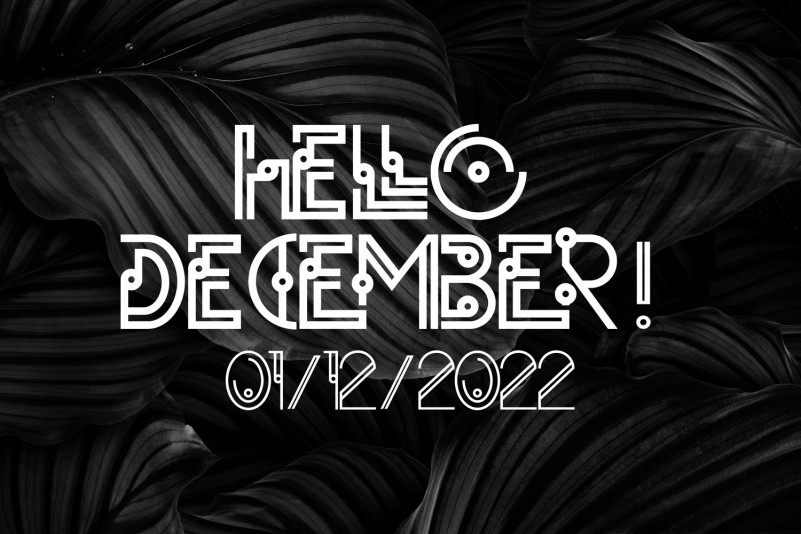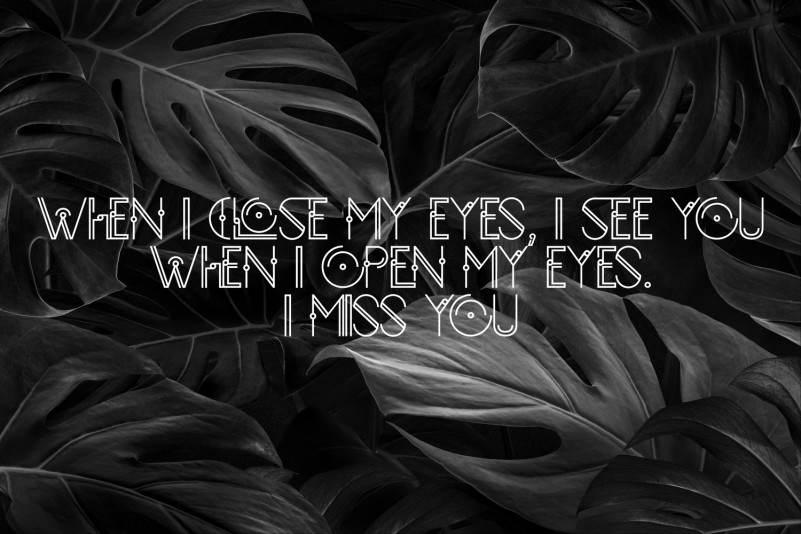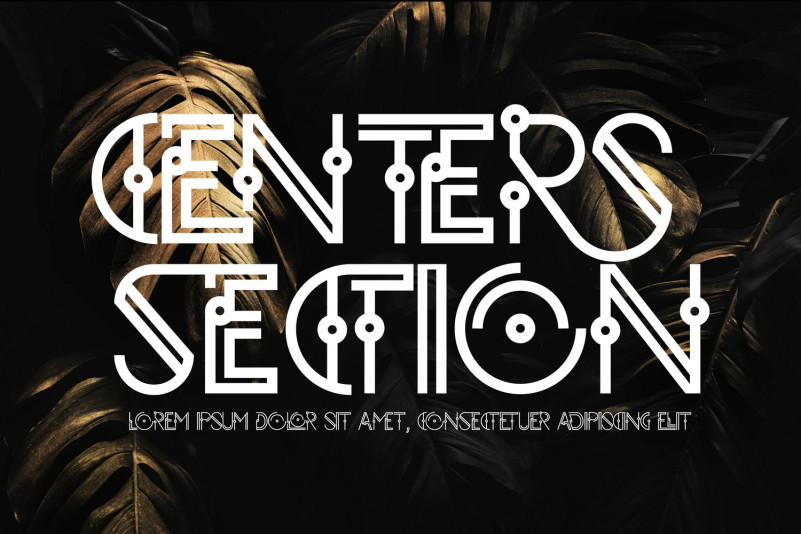
Centers Section Font
CENTERS SECTION Display Font is a modernized geometric typeface inspired by the cosmos. It was inspired by art deco, a style of visual arts, architecture and design that first appeared in France. It is a geometric stylish font full of alternate letters & ligatures – check out the slides above and see them all for yourself. It’s a display font that is suitable on your headline to your magazine, flyer, poster or neon installation. Also clearly shaped to be applied in print design like t-shirt, mug, banner or motion graphic.
To make it look more unique, here we prepared some ligatures:
AB AD AE AF AP CB CD CS CT CX EA EB ED EE EF EL EH EK EM EN EO EP ER ET EV EW FA FB FD FH FK FO FP FT FV FW GA GB GD GT GV GW HB HD HE HF HI JE JF JH JK ZA ZL ZH ZK ZM ZN ZO ZP ZR WA WR WP VA VR VP TE TF TJ TT TZ SD SE SF ST SZ RS OD OZ OT NL NK NH NF NE ML MK MH MF ME LE LF LL LH LK LM LN LO LP LR KS